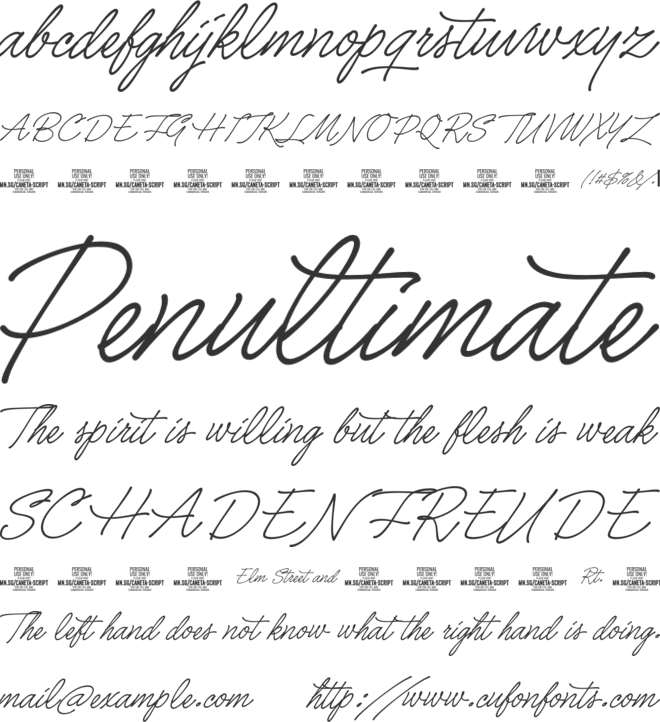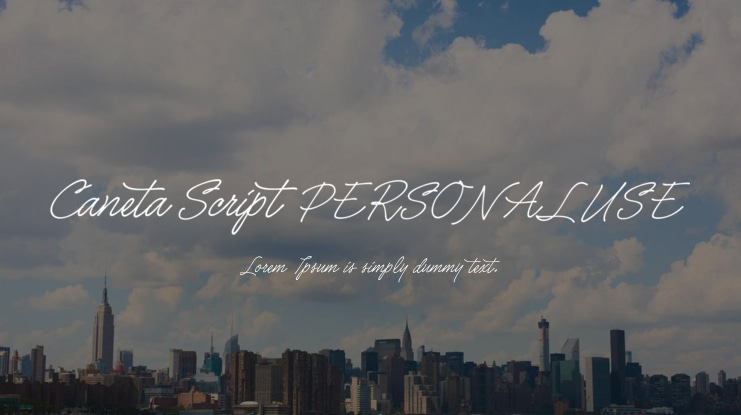
Caneta Script PERSONAL USE Font Family
Caneta Script captures the essence of traditional handwriting, featuring a calligraphy style inspired by the beauty of pen and ink. Reminiscent of handwritten letters and the scribbles of a feather pen, its delicate penmanship and nostalgic charm embody the spirit of the past while meeting the needs of the modern world. It is a representation of the timeless allure of the 1950s and the art of handwritten correspondence.